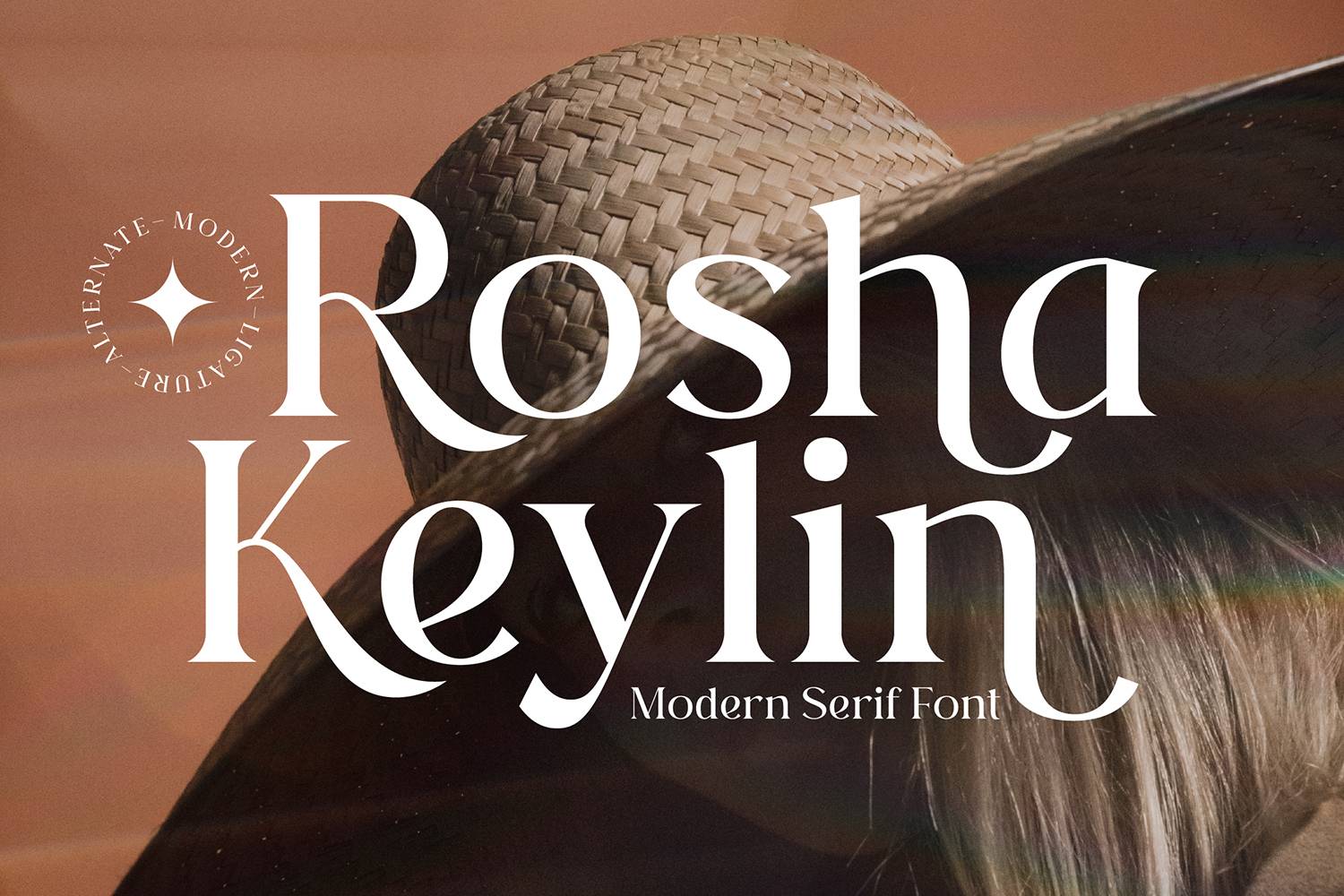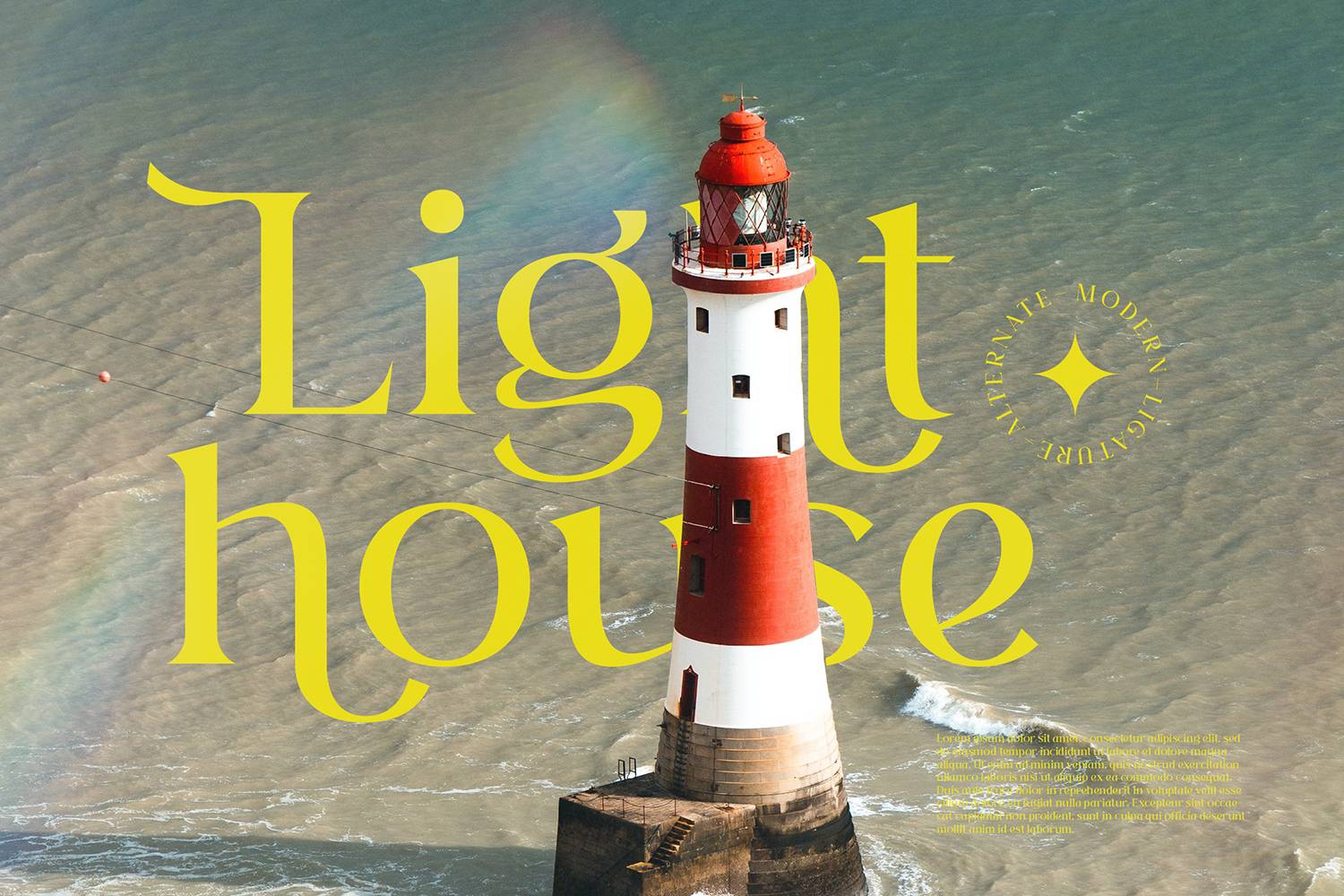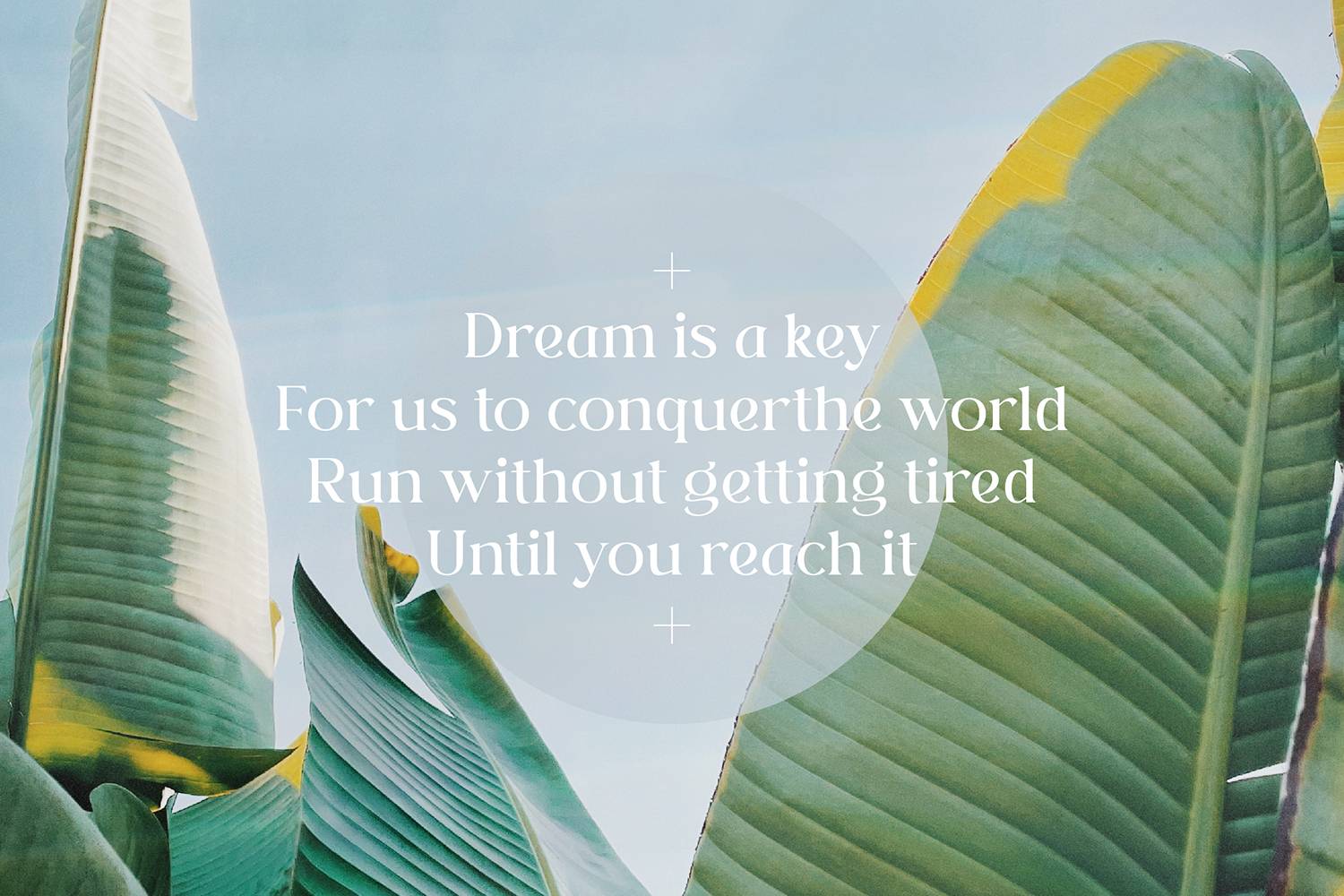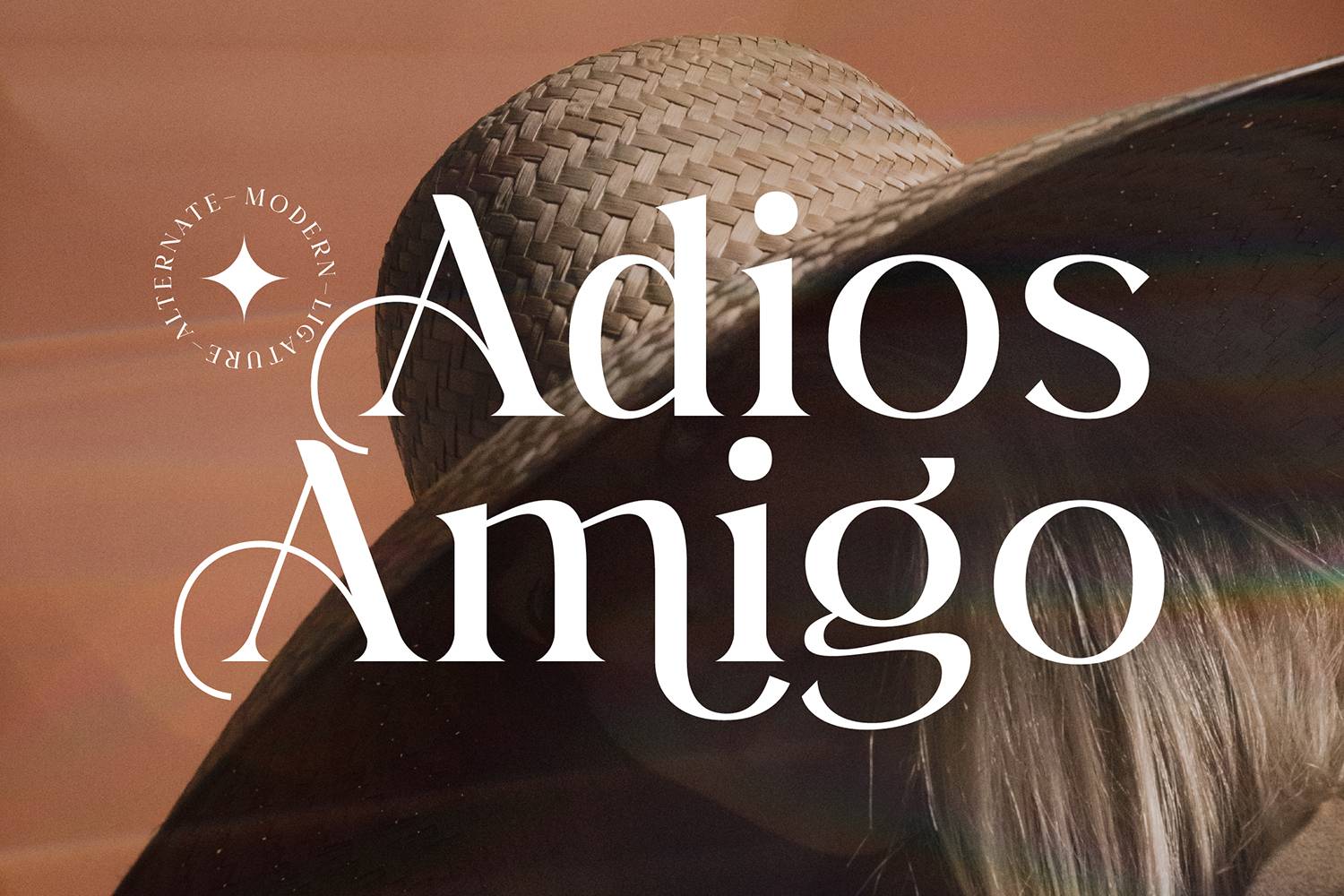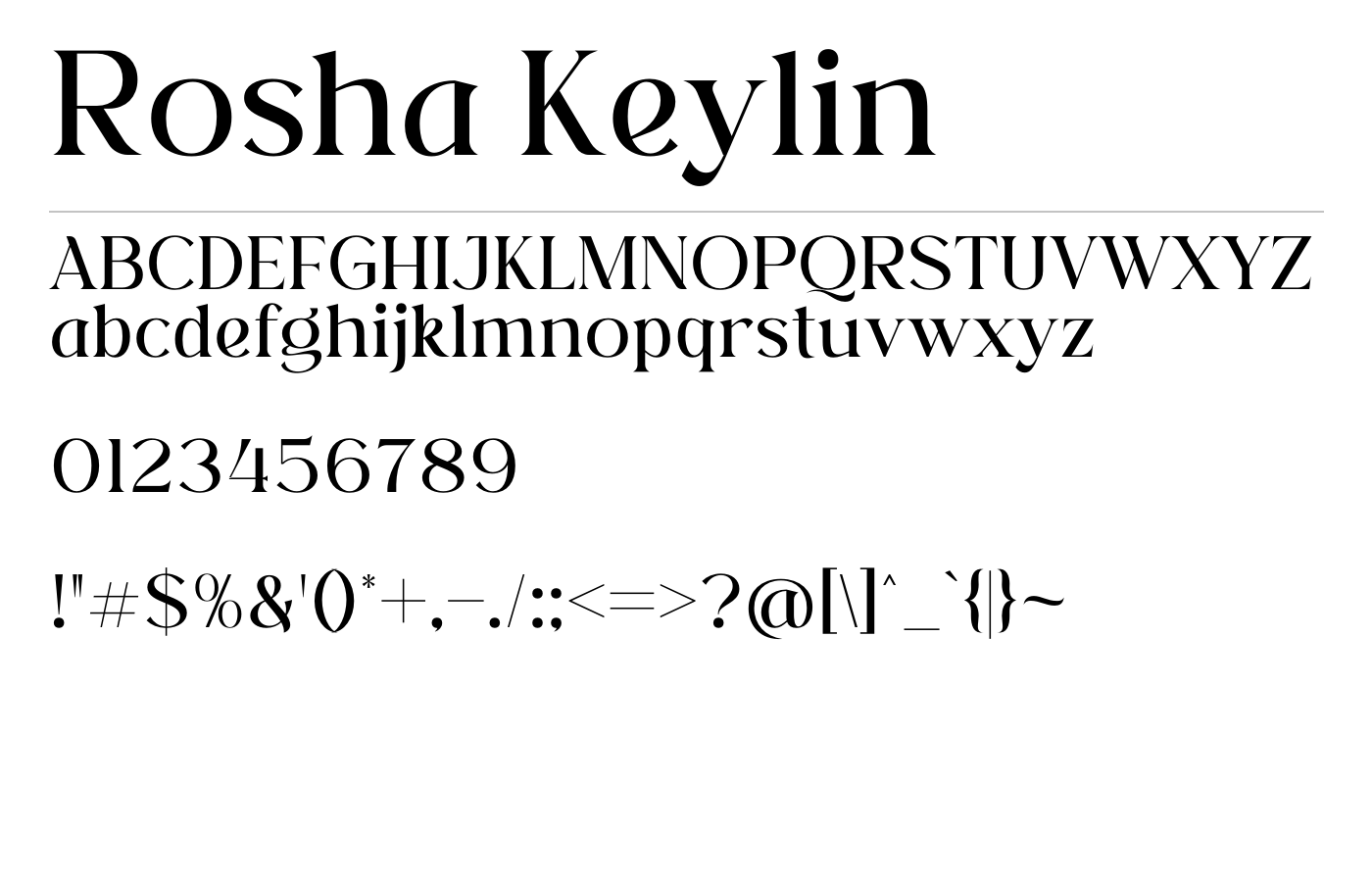
Rosha Keylin is an elegant serif font with a refined contrast between thick and thin strokes, featuring sharp, bracketed serifs and a balanced x-height that enhances readability. Its classic yet modern style, with distinctive letterforms like the single-story "a" and unique ampersand, makes it ideal for sophisticated branding, editorial design, and luxury packaging, where a timeless and polished impression is desired.
Rosha Keylin Font
About Rosha Keylin Font